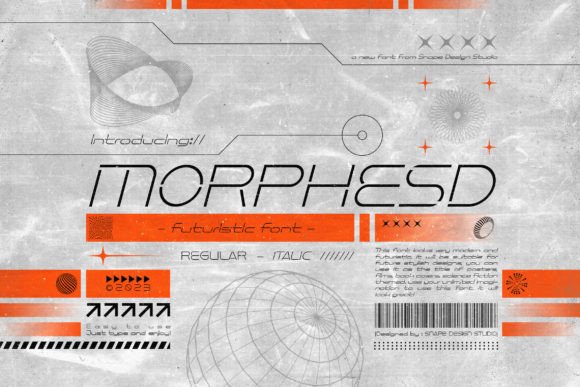
Delve into the realm of extraterrestrial elegance with Morphesd, the font family that's light years ahead in innovation and design. Crafted for the digital cosmos, Morphesd's avant-garde sans serif characters transcend boundaries, embodying a fusion of futuristic aesthetics and peerless functionality. This celestial font family heralds a new era of creativity, where boundless imagination intersects with technological prowess.
Immerse yourself in the cosmic elegance of Morphesd, a typographic masterpiece designed to elevate your projects to new dimensions. Its sleek, dynamic structure dances across the digital canvas, captivating audiences with its ethereal allure. Whether you're navigating the vast expanse of sci-fi landscapes or exploring the intricate depths of technological frontiers, Morphesd orchestrates a symphony of visual harmony, transforming your words into celestial wonders.
With Morphesd, customization is not just a feature; it's an art form. Unleash your creativity and mold this font family into a reflection of your unique vision. Effortlessly adapt its characters to match your aesthetic desires, creating a typographic tapestry that dances to the rhythm of your imagination. Morphesd empowers you to craft designs that resonate with your audience, leaving an indelible trail of digital stardust in their minds.
Join the vanguard of creativity and embrace Morphesd, the font family that shatters boundaries and redefines the possibilities of typography. Its interstellar beauty and unparalleled versatility await your command, ready to propel your projects into the cosmos of brilliance. As you delve into the depths of Morphesd, you'll discover a font family that's not just a tool, but a muse - an ethereal companion that ignites your imagination and carries your creations to the far reaches of the digital universe.